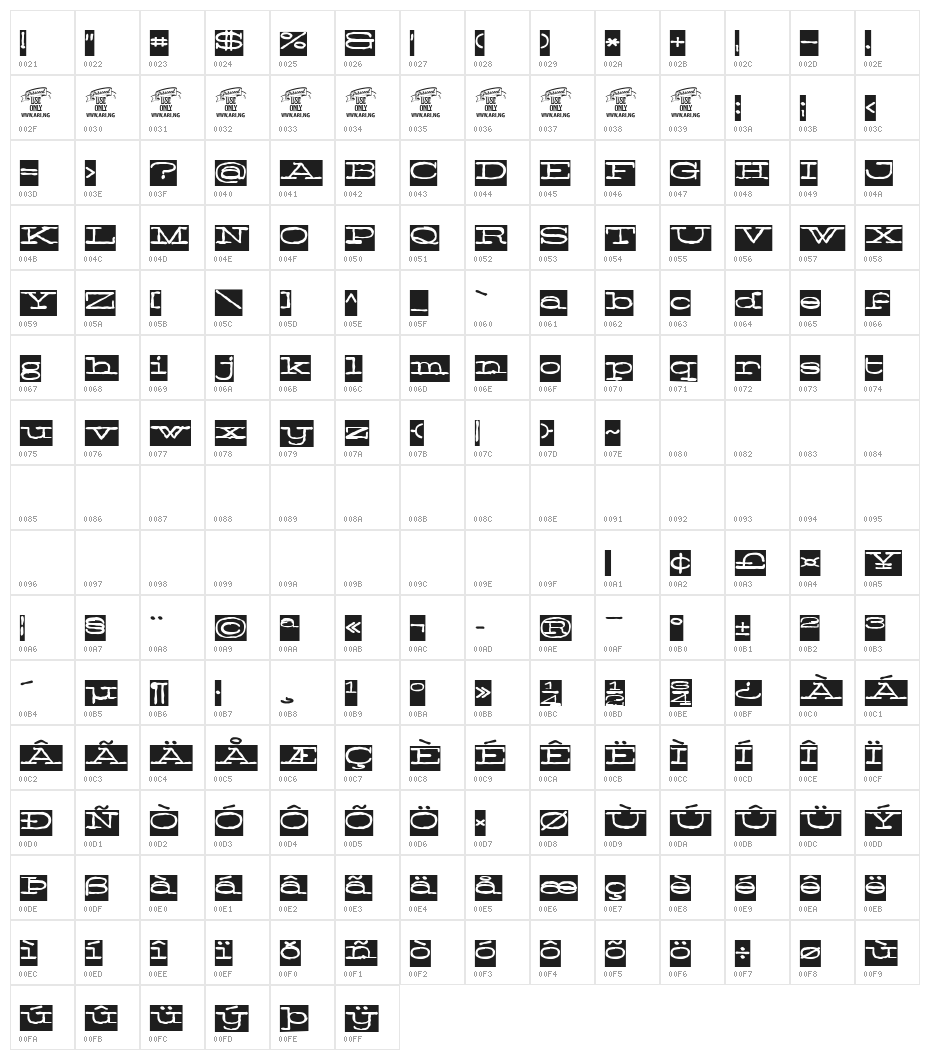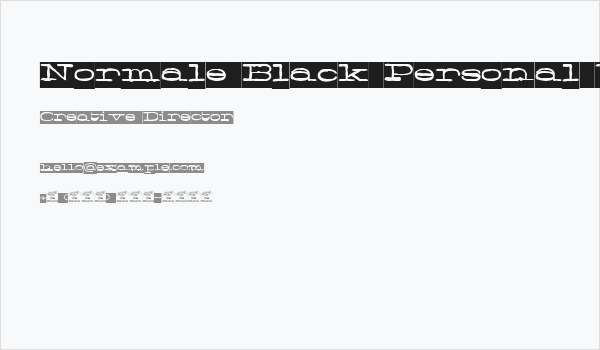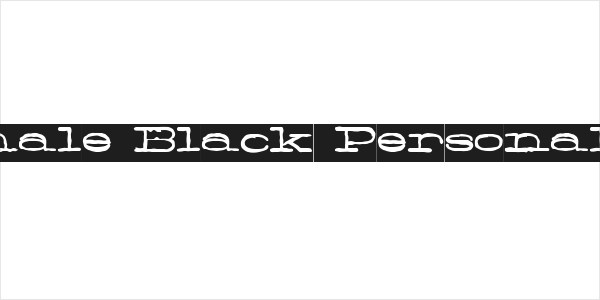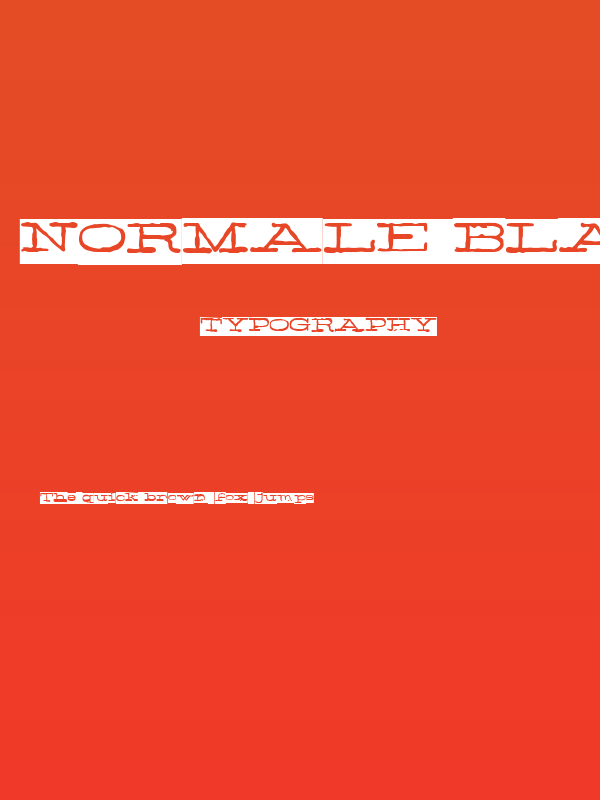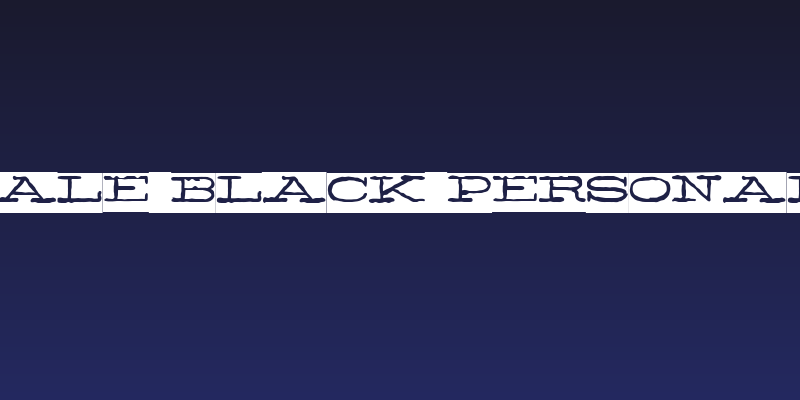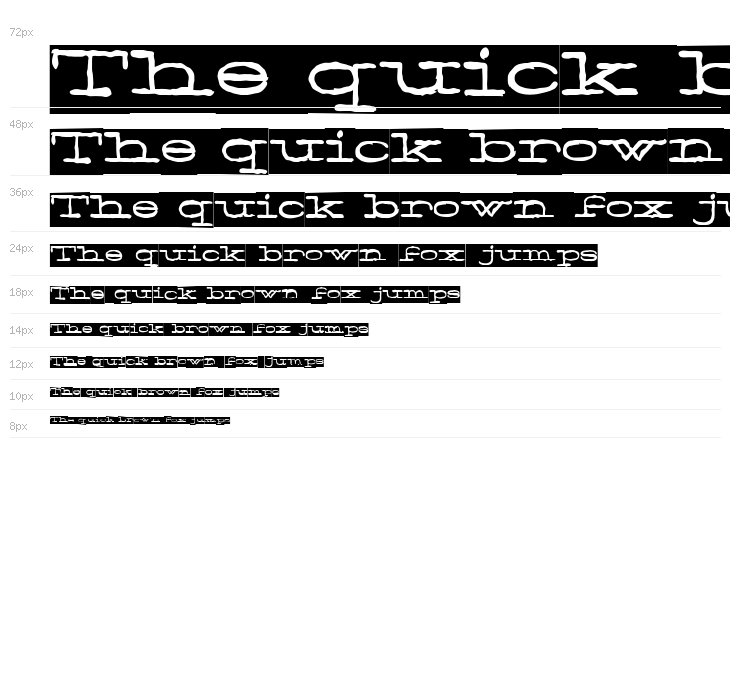
Normale Black Personal Use Font
Normale Black Personal Use Description
This font features a bold and distressed style, reminiscent of typewriter or vintage print aesthetics. The uppercase and lowercase letters are characterized by a rough, textured appearance, giving them a worn and rugged look. The strokes are uneven, with some letters appearing slightly tilted or irregular, enhancing the font's rustic charm. The numbers and special characters maintain this distressed style, ensuring consistency across all glyphs. This font's unique style makes it stand out, offering a blend of nostalgia and boldness.
| Proposed Projects | Ideal for projects that require a vintage or retro feel, such as posters, album covers, or branding for artisanal products. |